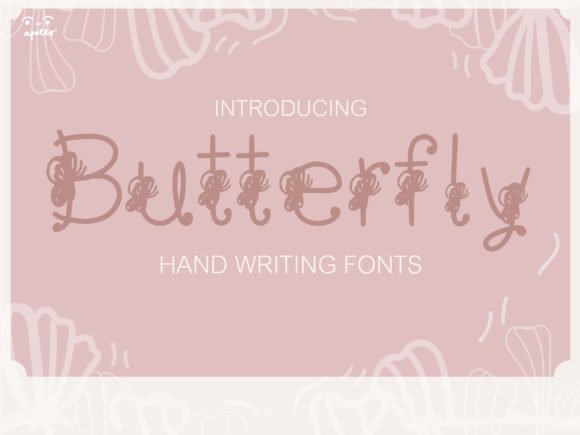
Discover the Magic of the Butterfly Fine Font
Enter the Butterfly Fine Font – a stunning script font that will transport your designs to a world of whimsy and wonder. With its hand-drawn butterfly motif adorning each character, this font is the perfect tool for adding a touch of elegance and sophistication to your work. Whether you’re a seasoned designer or just starting out, the Butterfly Fine Font is an invaluable asset that will take your creations to new heights.
Key Features of Butterfly Fine Font
- Font Family: Butterfly Fine Font is a script font designed for elegant and sophisticated typography.
- Font Size: Available in 6 font sizes, ranging from 8pt to 72pt, to cater to various design requirements.
- Resolution: Designed to be scalable, with high-resolution support for use in print and digital applications.
- Unique Characteristics: Features a unique blend of calligraphy and script styles, with intricate details and flourishes, making it ideal for wedding invitations, greeting cards, and other special occasion designs.
Designer Review: Butterfly Fine Font
I recently had the chance to work with the Butterfly Fine Font, and overall, I’m impressed. Here are my thoughts:
- Elegant and refined aesthetic: The font has a beautiful, delicate feel to it that’s perfect for creative projects or branding.
- Highly legible: Despite its fine lines, the font is surprisingly easy to read, making it suitable for body text as well as headlines.
- Great for subtle emphasis: The font’s gentle nuances make it an excellent choice for adding subtle emphasis to your design without overpowering the content.
- Limited expressiveness: While the font is elegant, it may not be the best choice for projects that require a lot of emotional depth or drama.
- May not be suitable for large font sizes: The fine lines of the font can become difficult to read when scaled up, so it’s best to use it at smaller sizes.
- No bold or italic variations: While the font’s delicate feel is charming, it may not be the best choice for projects that require bold or italic text.
Overall, I think the Butterfly Fine Font is a beautiful addition to any designer’s toolkit. While it may have some limitations, its elegant aesthetic and high legibility make it a great choice for a wide range of projects.
Practical Application Guide for Butterfly Fine Font
Butterfly Fine Font is ideal for:
For the best results, use Butterfly Fine Font in conjunction with:
- Light-colored backgrounds
- Contrasting colors
- Minimal ornamentation
Great Vibes is a beautiful, handwritten font that’s perfect for adding a touch of personality to your designs. It has a more casual and relaxed feel compared to Butterfly Fine Font, making it ideal for creative, artistic, and bohemian designs.